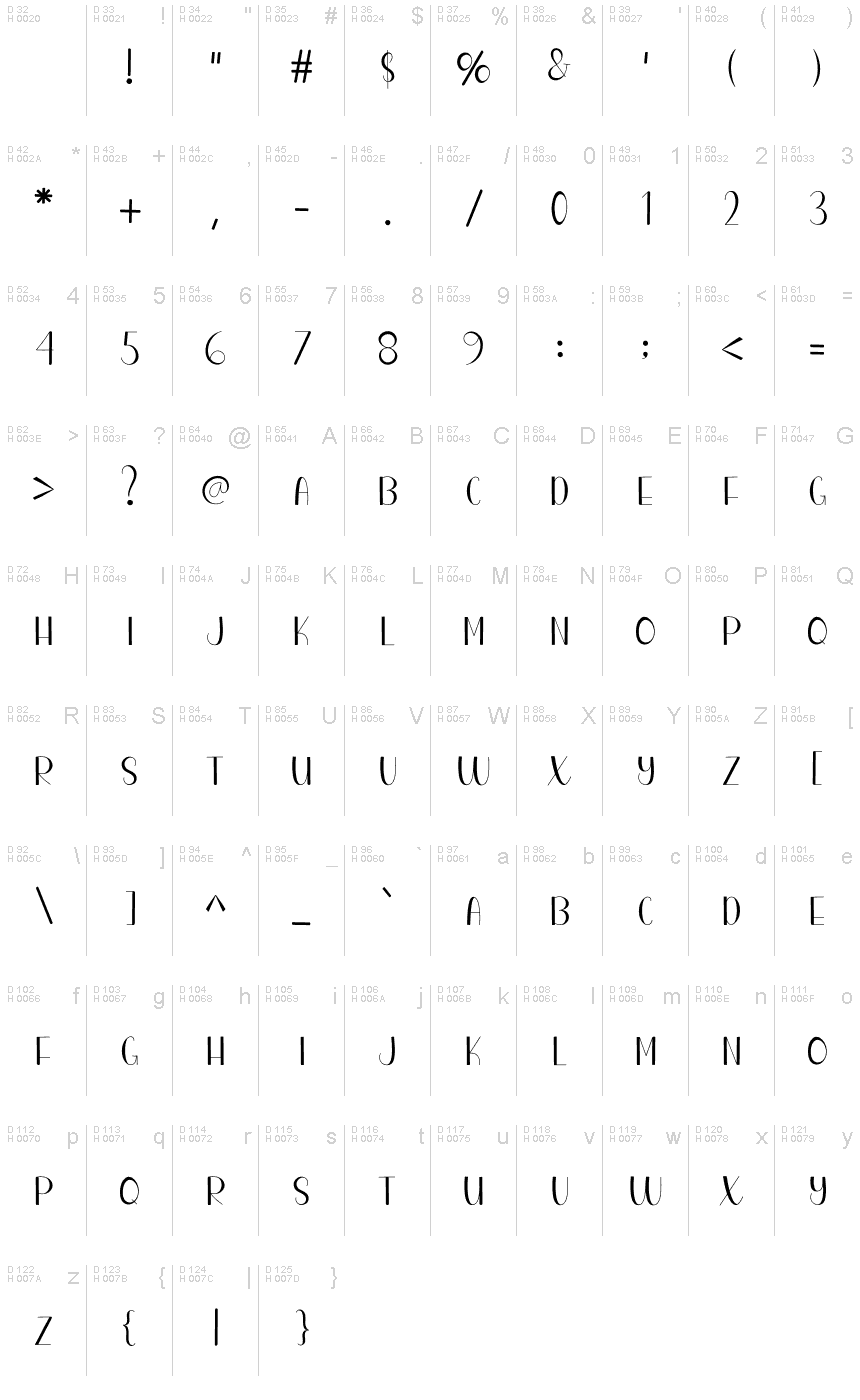
Website
Meet the charming Website font, designed by Belina Studio. With its semi-light weight and semi-condensed width, this cute handwritten typeface is perfect for adding a touch of playfulness to your designs. Its all caps feature makes it ideal for headlines, logos, and branding materials that need to stand out. Use it for a variety of projects such as children's books, greeting cards, fashion blogs or even food packaging. The Website font is sure to bring a delightful personality to any project it graces.
the latest style letters are perfect for wall displays, wedding invitations, social media post logos, advertisements, product packaging, product designs, labels, photography, watermarks, invitations, stationery, and any project that requires taste handwriting.